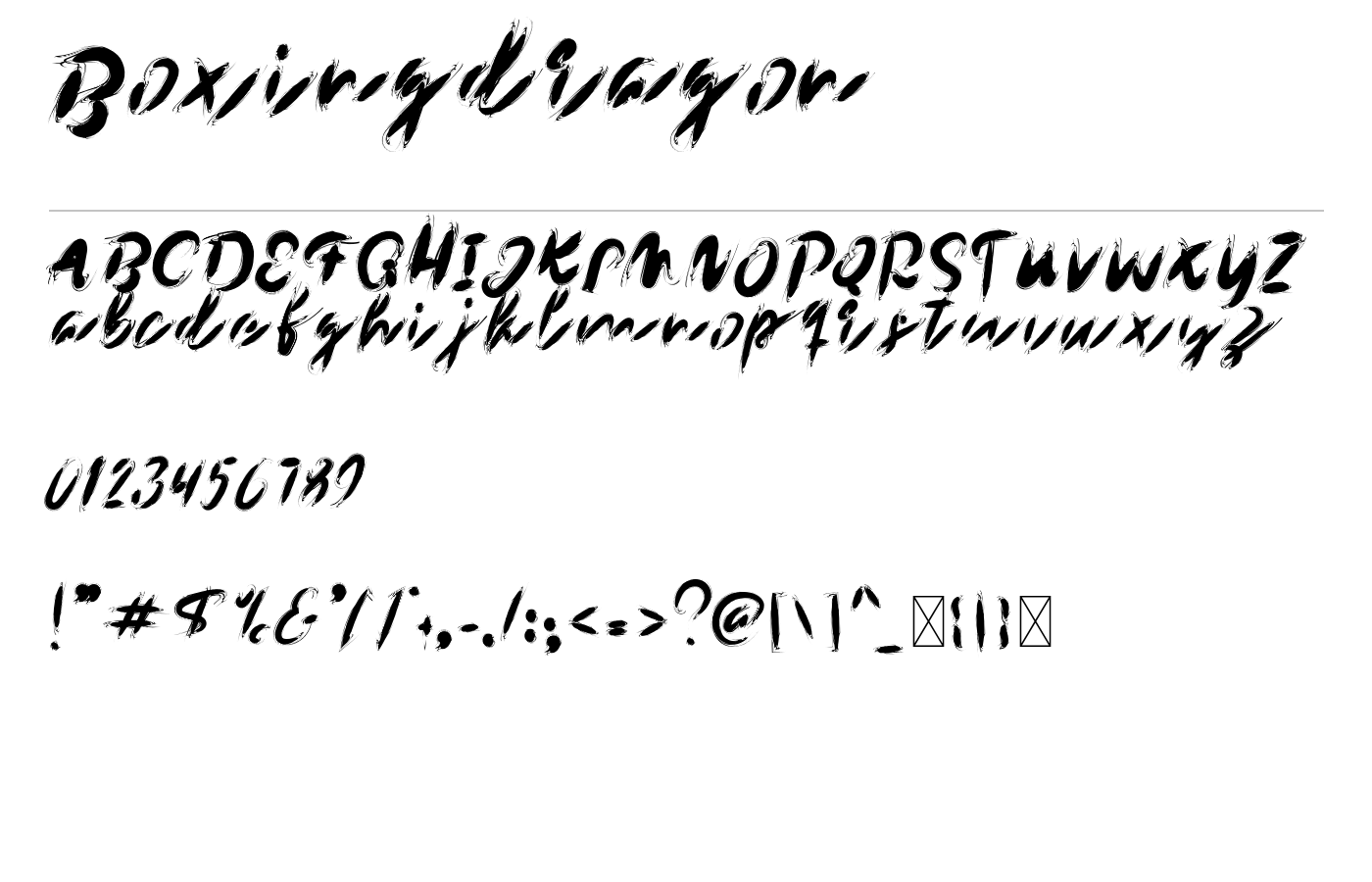
Boxingdragon is a bold and expressive brush script font that captures energy and movement with its dynamic, hand-painted strokes. Its irregular edges and varying stroke widths give it a raw, artistic feel, making it perfect for creative branding, posters, and designs that need a strong, energetic personality. This font works best in headlines and display uses where its lively, informal style can truly stand out.
Boxingdragon Font
About Boxingdragon Font
| Font family | Boxingdragon Font |
| Designer | Iqbalfaizinm |